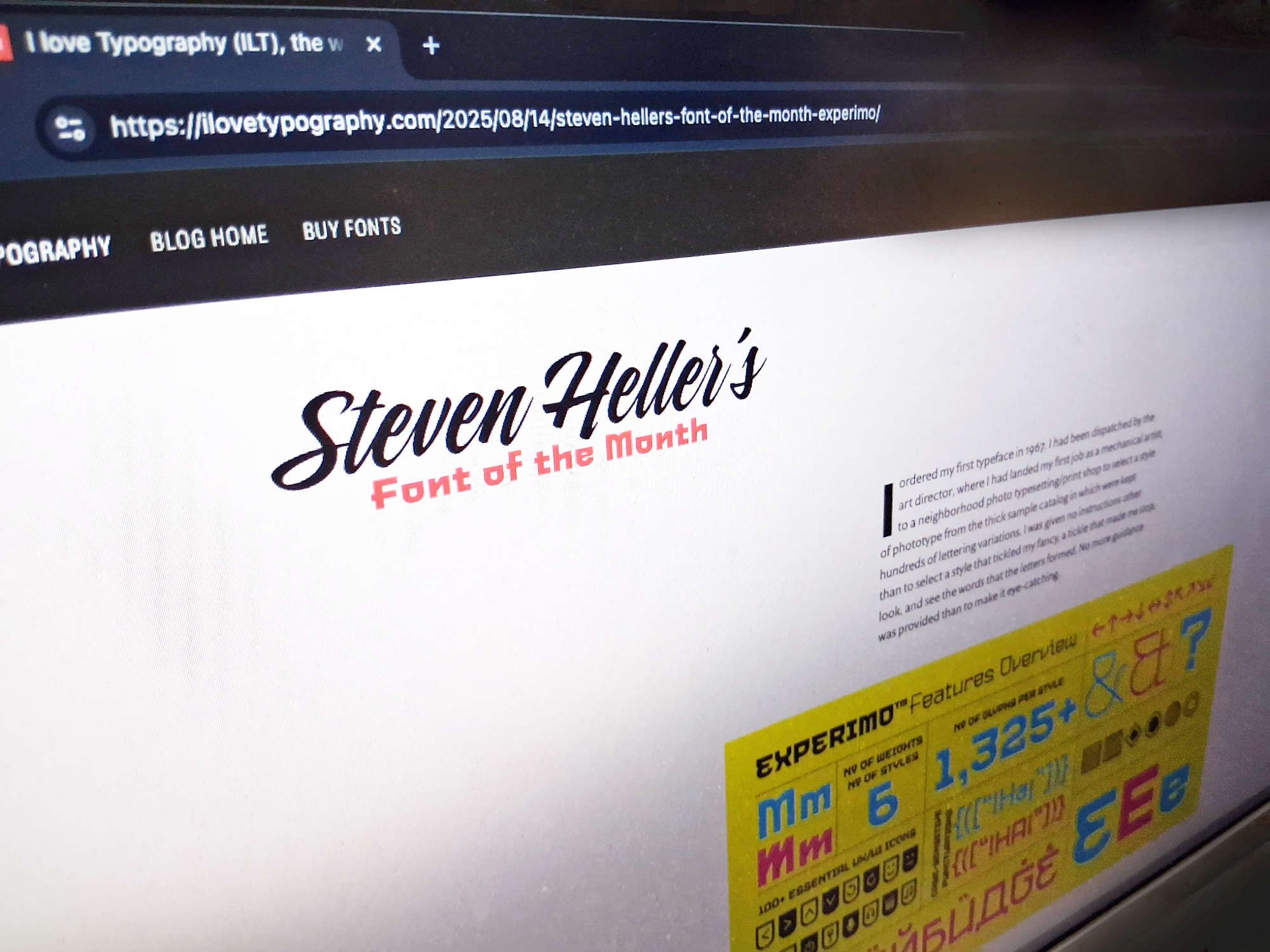
Experimo™ Typeface Featured in Steven Heller’s "Font of the Month"
Press feature image showing Steven Heller's "Font of the Month" article on I Love Typography, confirming the Experimo font feature.
Technical features overview of the Experimo font: 6 weights, 1,325+ glyphs per style, 100+ essential UX/UI icons, 200+ language support, and OpenType case-sensitive punctuations.
We're incredibly honored and excited to announce that our typeface, Experimo™, has been featured by the legendary Steven Heller in his acclaimed "Font of the Month" column. This recognition from one of the most respected voices in graphic design is a significant milestone for our team at R9 Type+Design.
A Nod to Experimo's Unique Identity
Heller praised Experimo for its distinctive personality, describing it as "by far the most eccentric of the fonts available." He drew a parallel to his own formative experiences, noting that he selected it because of its unique, unconventional character.
He also insightfully highlighted the font's core design philosophy, praising its ability to switch between "different moods and expressions while remaining within the same close-knit type family." This praise is a testament to our mission to create versatile and memorable typefaces that empower designers to tell a wide range of stories.
Hero type specimen poster design for Experimo, a futuristic display font, featuring the title "THE FIREWALL OF HADES." Featured by Steven Heller.